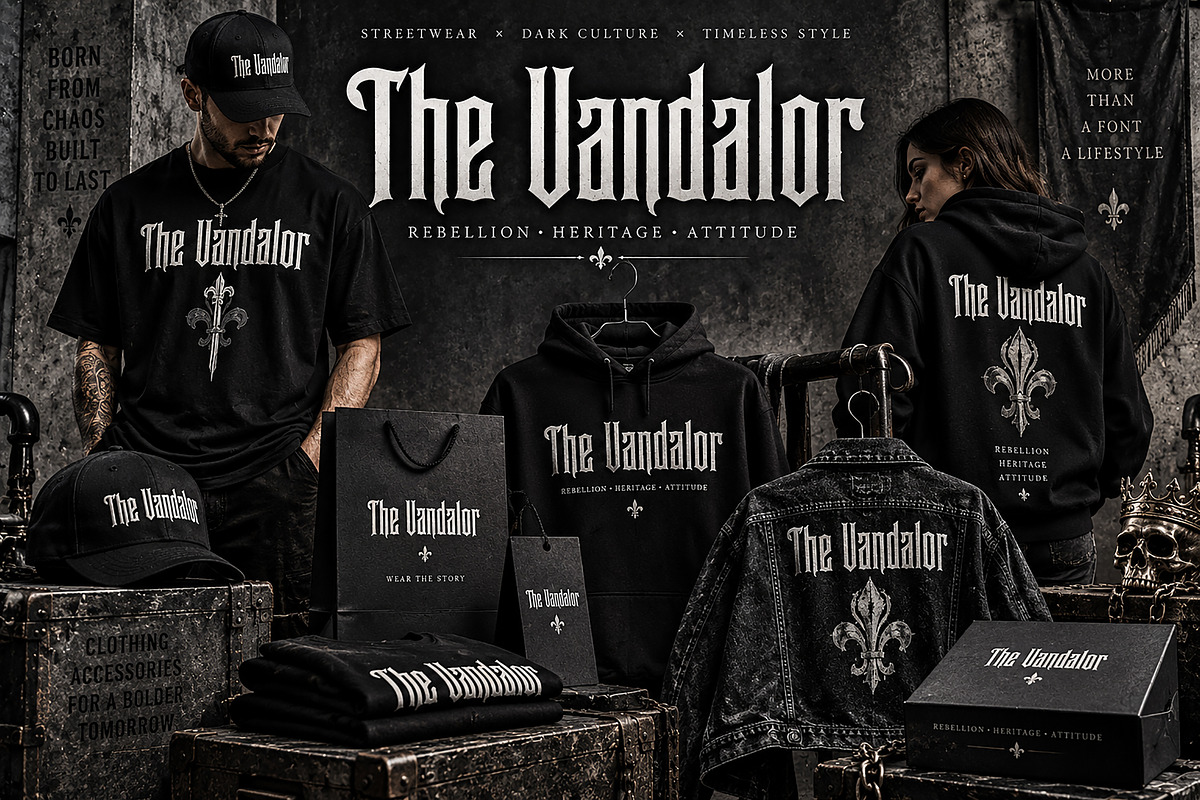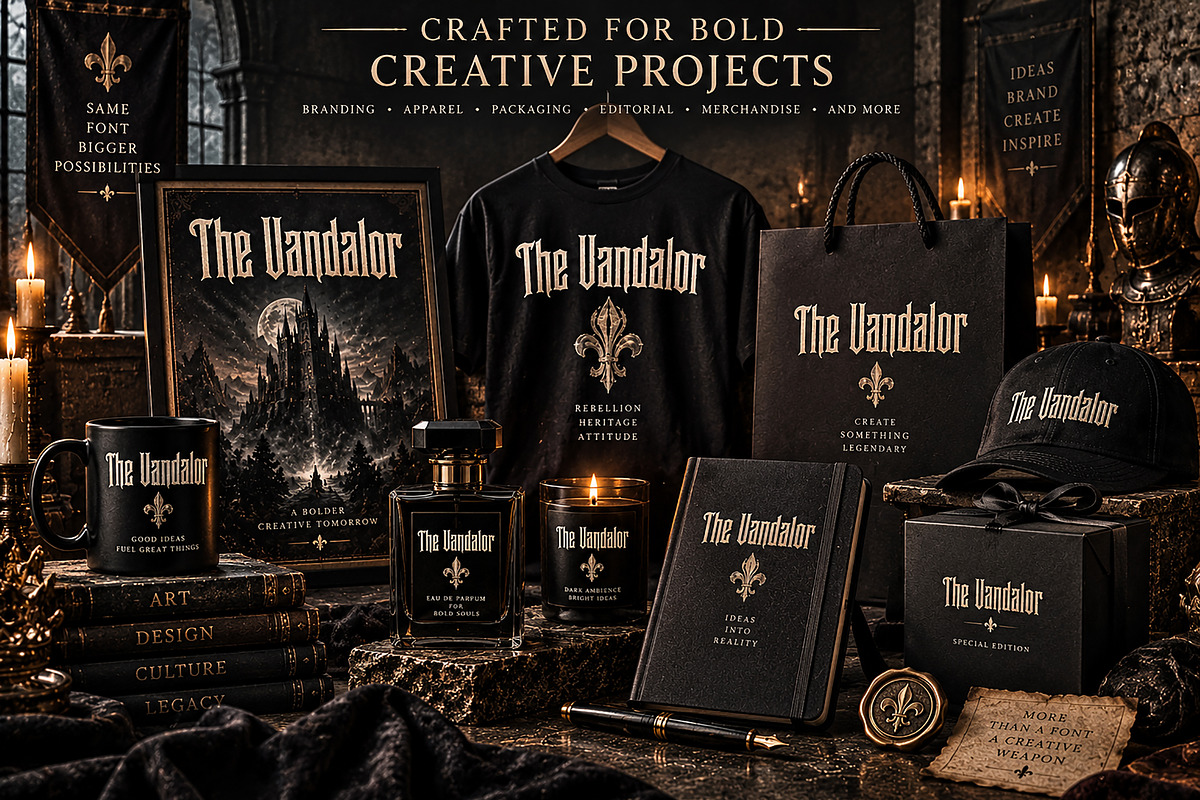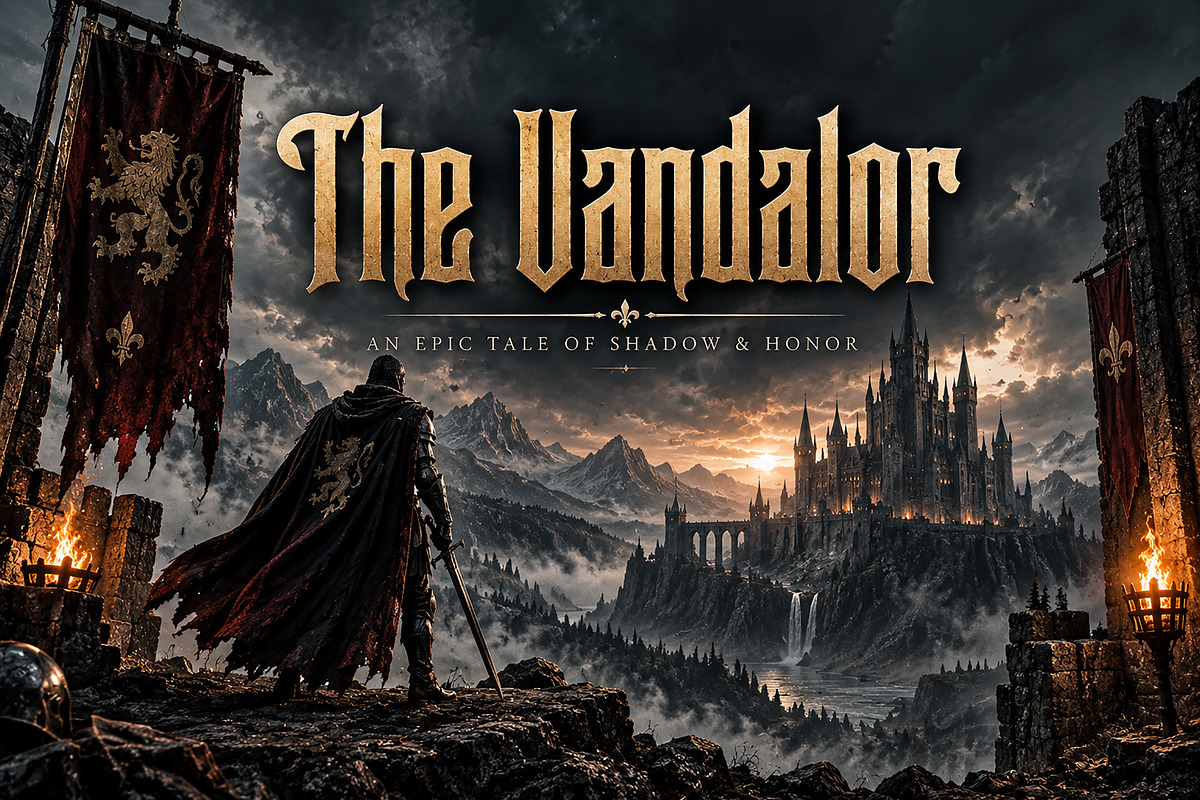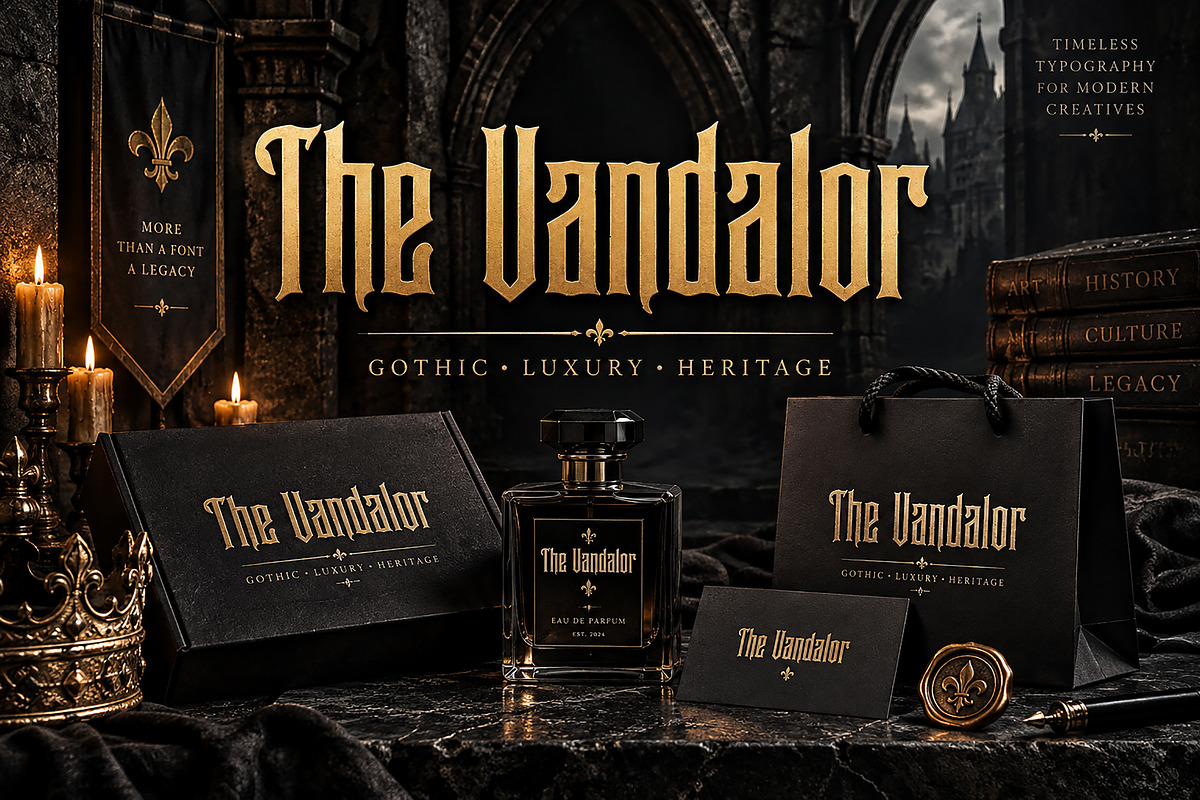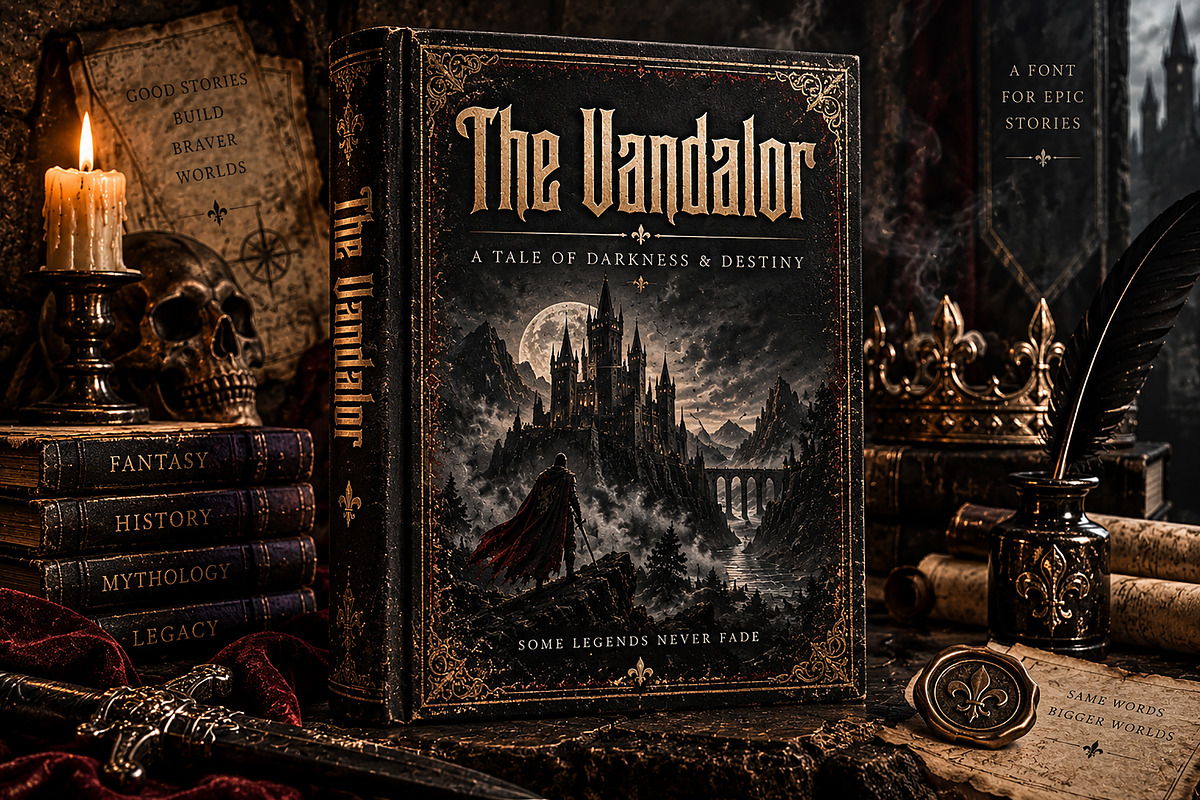
The Vandalor
The Vandalor — Gothic Blackletter Font
The Vandalor is a bold and dramatic Gothic Blackletter display font inspired by medieval typography, ancient legends, dark fantasy, and timeless heritage. Its sharp, striking letterforms bring an authentic historical character and powerful visual presence to any creative project.
Designed to make a strong impact at large sizes, The Vandalor is perfect for branding, logos, apparel, posters, book covers, album artwork, packaging, fantasy designs, merchandise, editorial projects, and other projects that need a dark, bold, and distinctive aesthetic.
Whether you're creating a Gothic fashion brand, medieval-inspired artwork, fantasy poster, album cover, book title, or premium product identity, The Vandalor gives your typography an unforgettable character.
Style: Gothic / Blackletter / Medieval
The Vandalor — Bold letters. Dark heritage. Timeless impact.